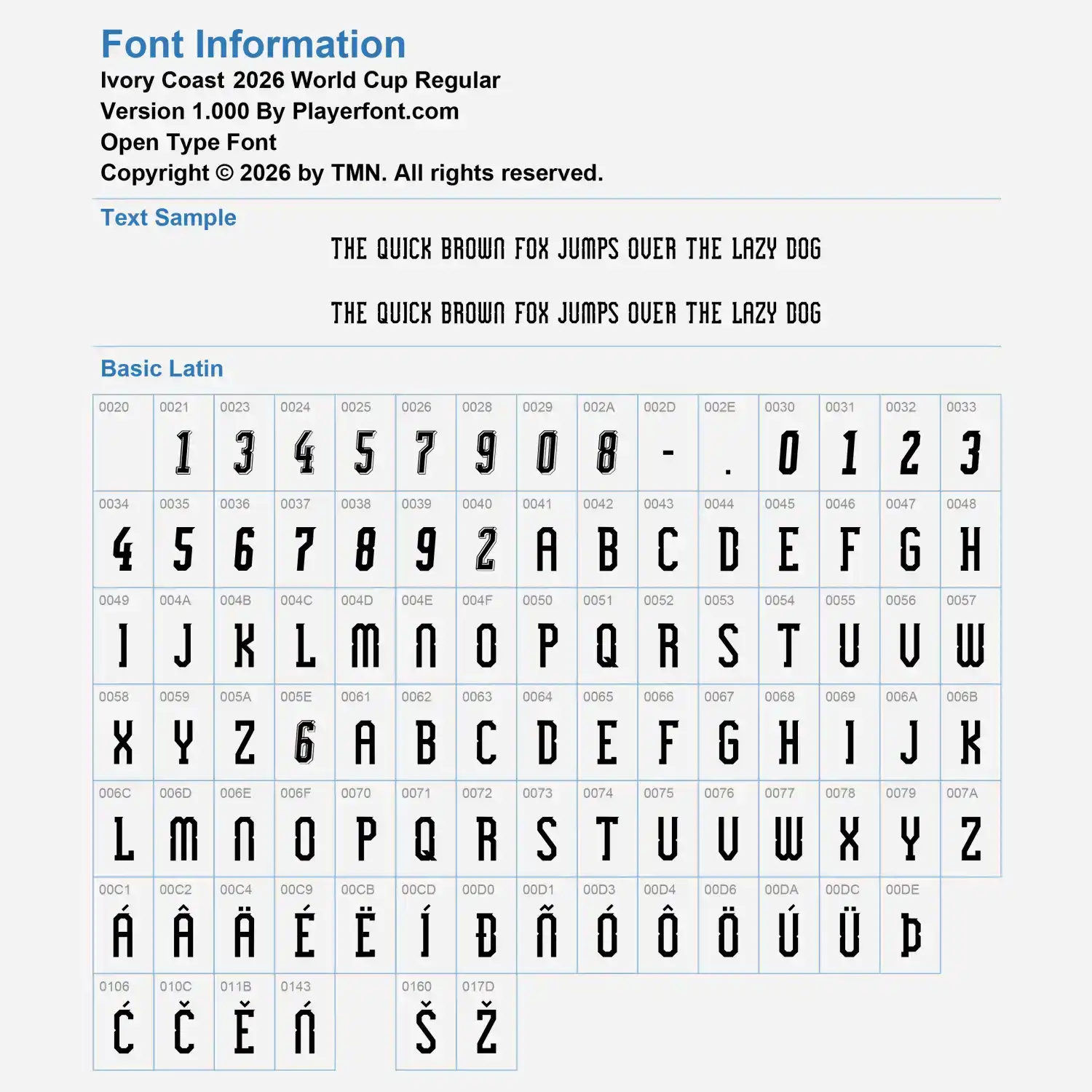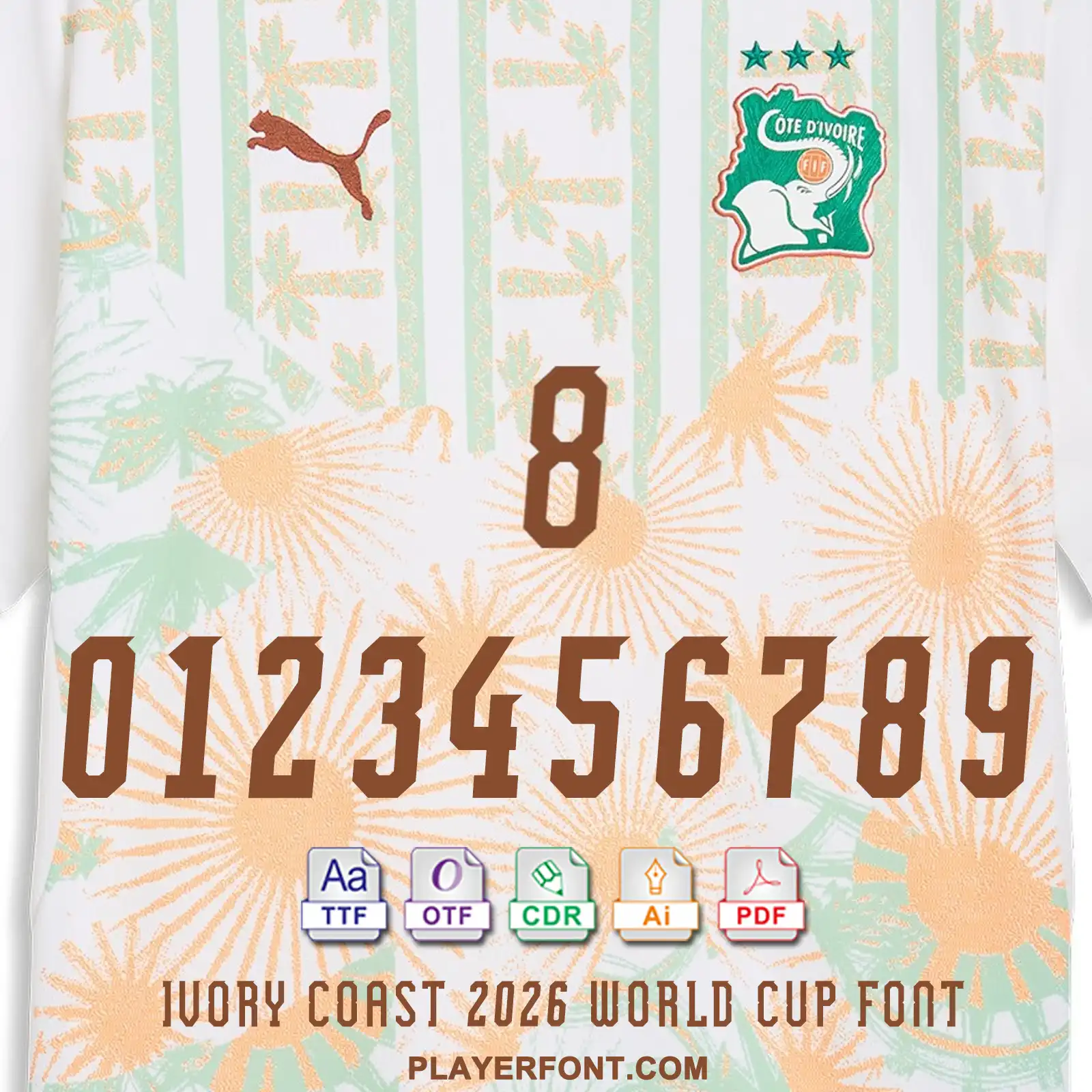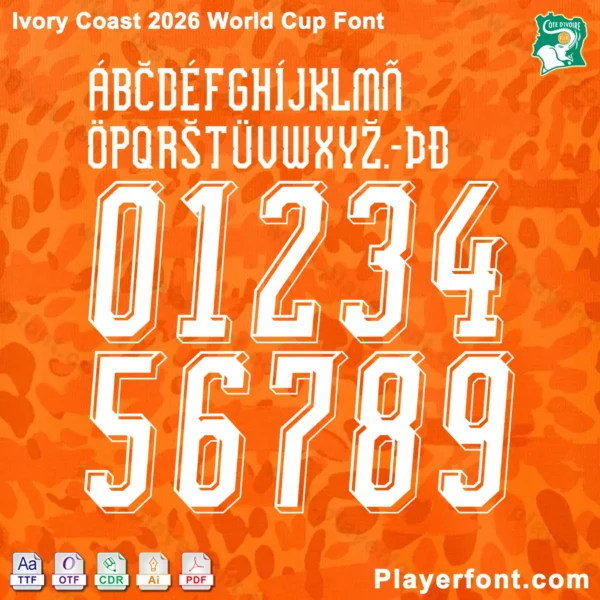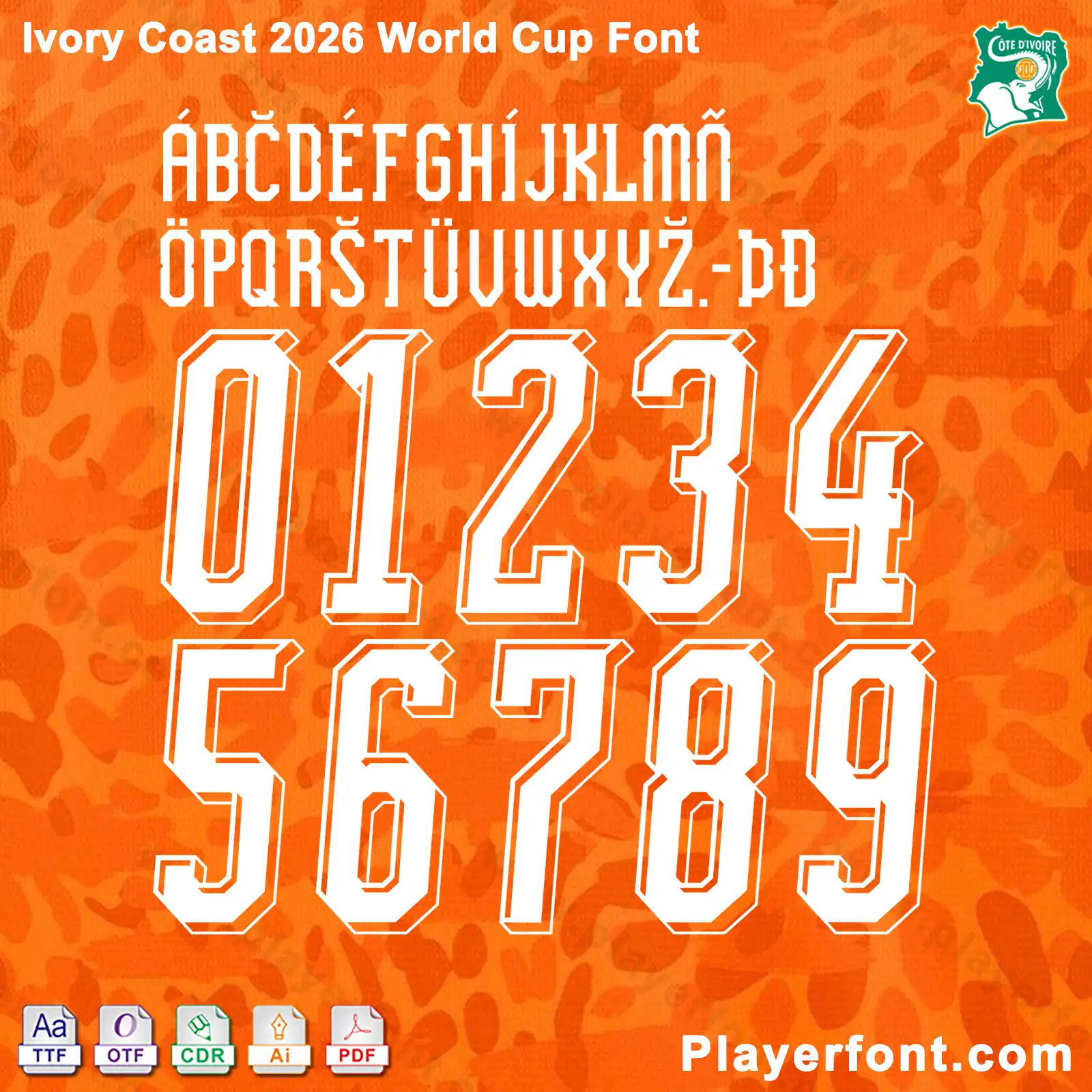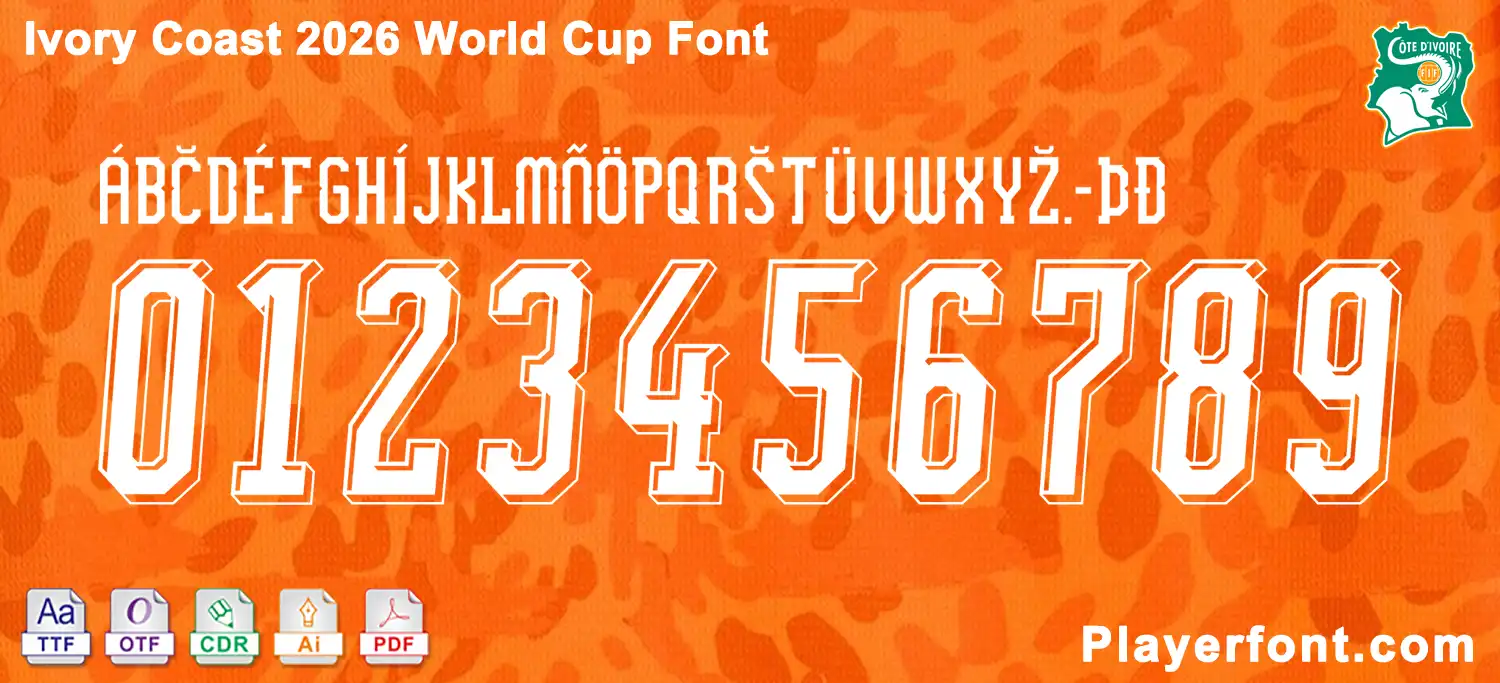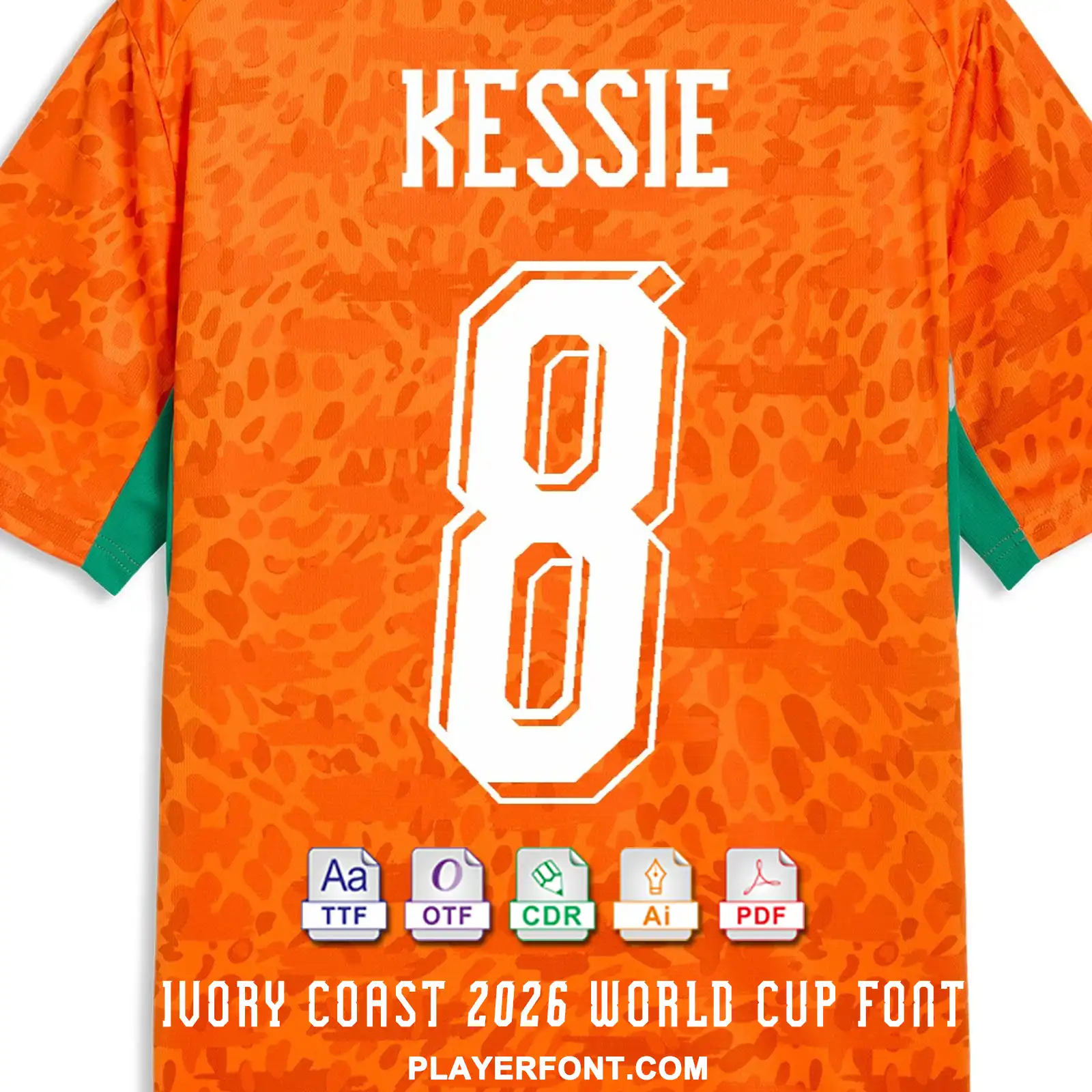
Bring the spirit of “Les Éléphants” to your designs with the Ivory Coast 2026 World Cup font. This typography kit is meticulously recreated to match the official style seen on the national team’s 2026 tournament kits. Perfect for graphic designers, sports apparel printers, and football fans, this font offers a bold and modern aesthetic suitable for high-end reproduction.
The design features strong geometric lines and distinct curves, making it ideal for vinyl cutting, sublimation, and large-scale digital printing.
• Full Character Set: Includes all uppercase letters, numbers 0-9, and essential punctuation.